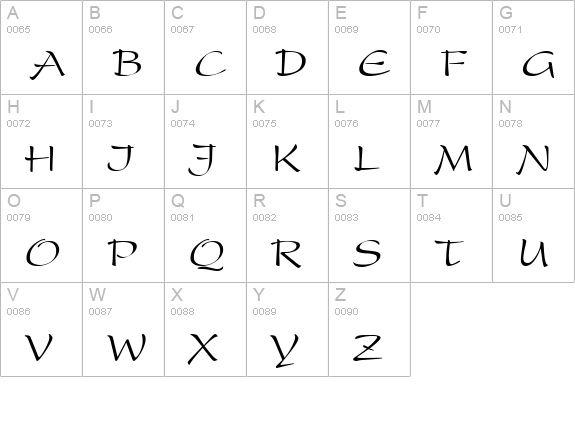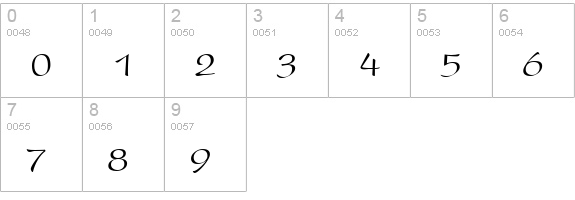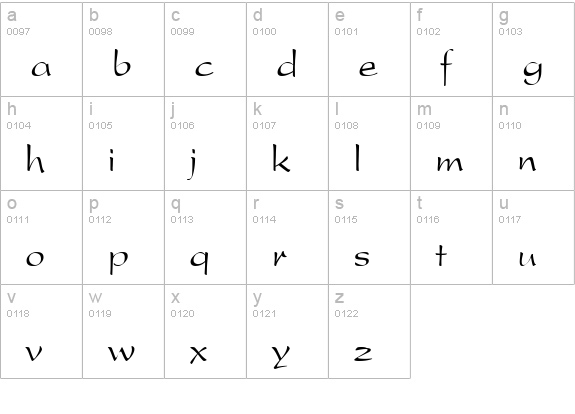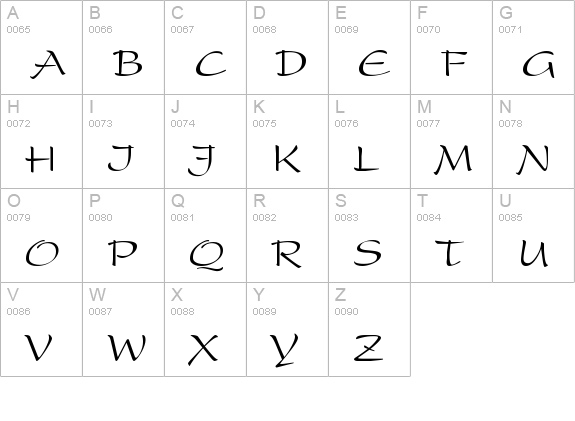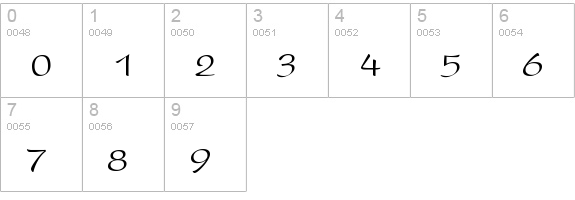
TR President Font Details
TR President font exudes elegance and sophistication, making it the perfect choice for projects that require a touch of refinement. Its classic yet modern design ensures readability and versatility across various design applications. The clean lines and timeless appeal of TR President font make it a popular choice for branding, editorial design, and more. Best of all, TR President font is available for free download at FontsMarket.com. This means you can easily access and use this stunning font in your projects without any cost. Don't miss out on the opportunity to elevate your designs with the beauty and charm of TR President font. Download it today and experience the difference it can make in your creations.